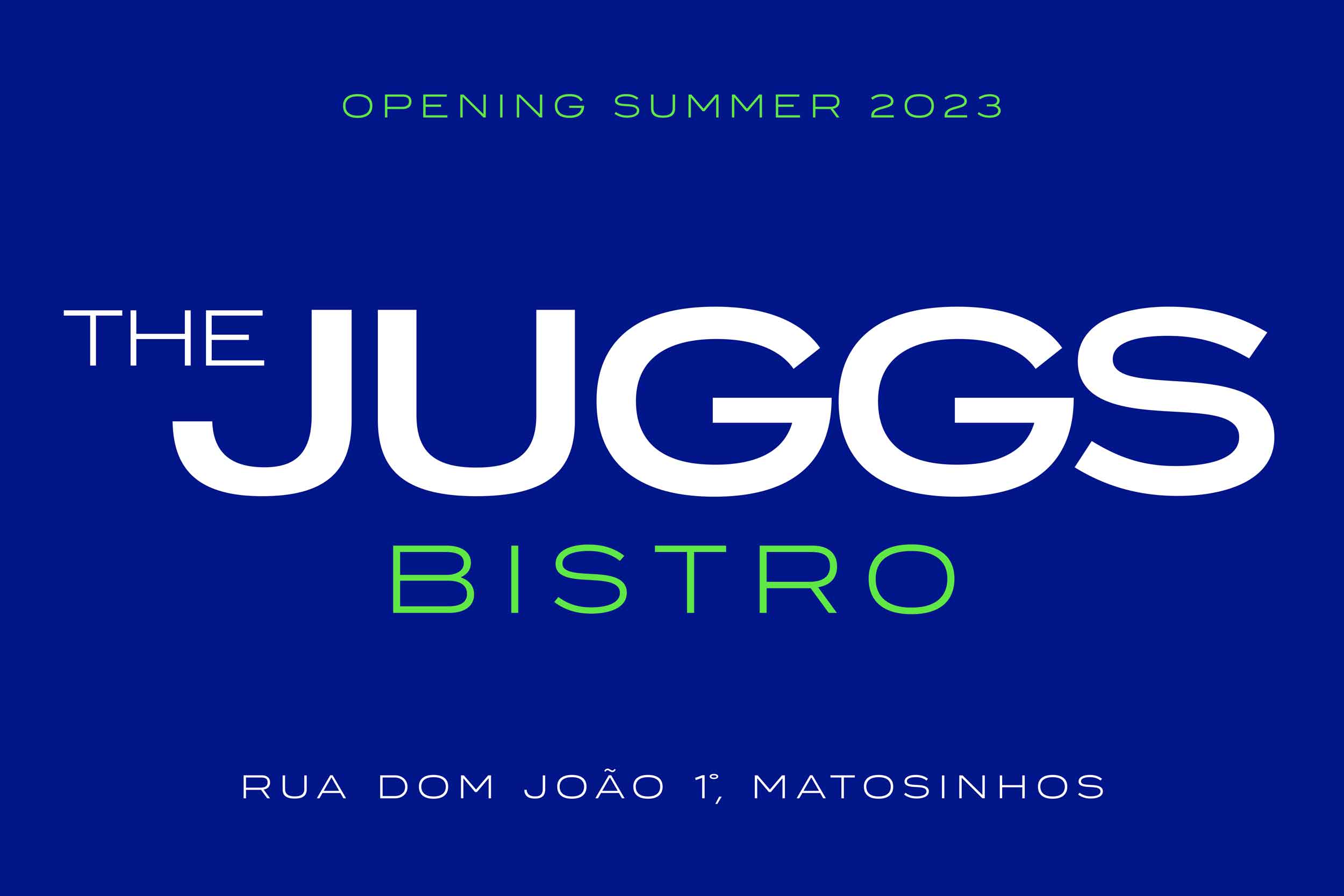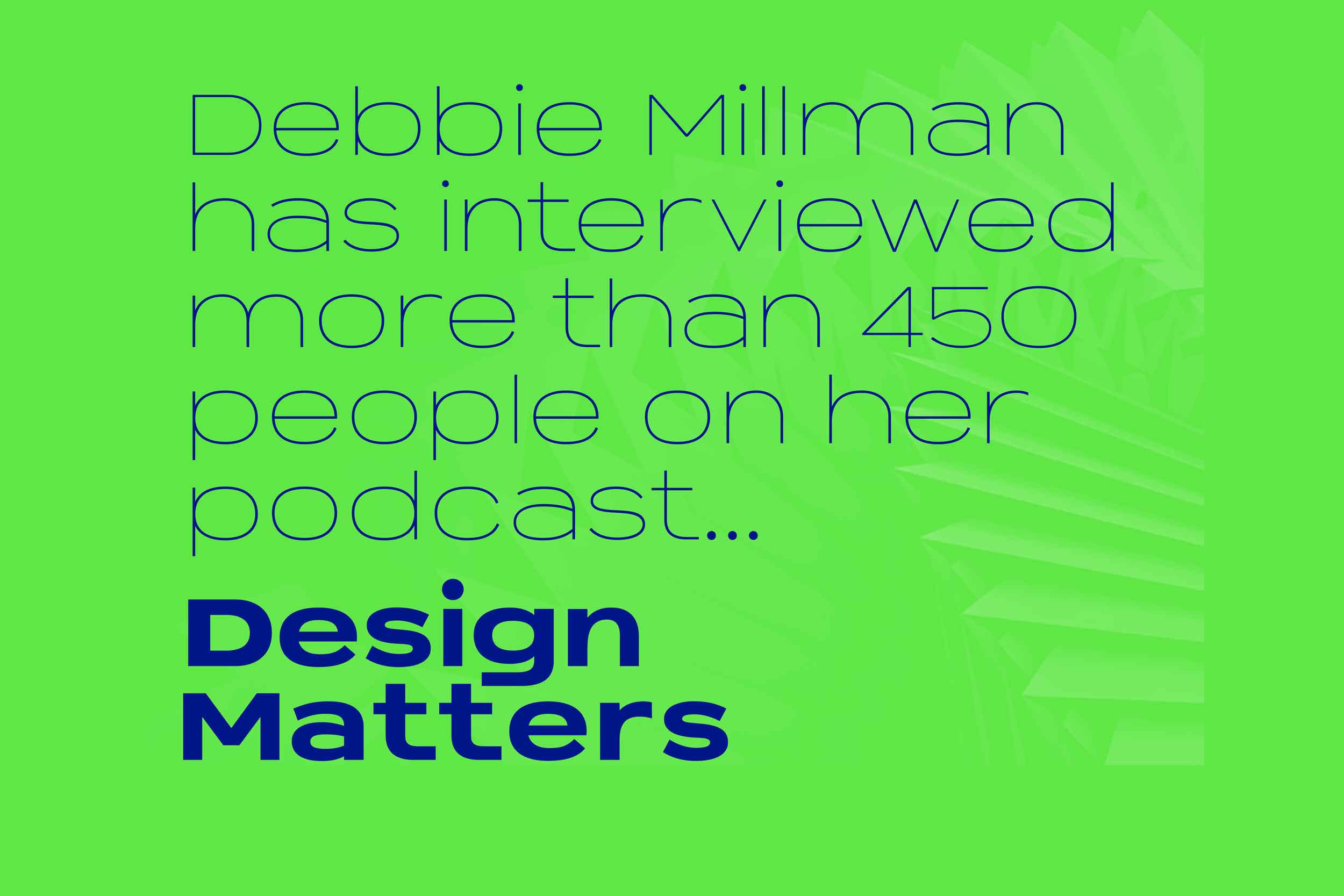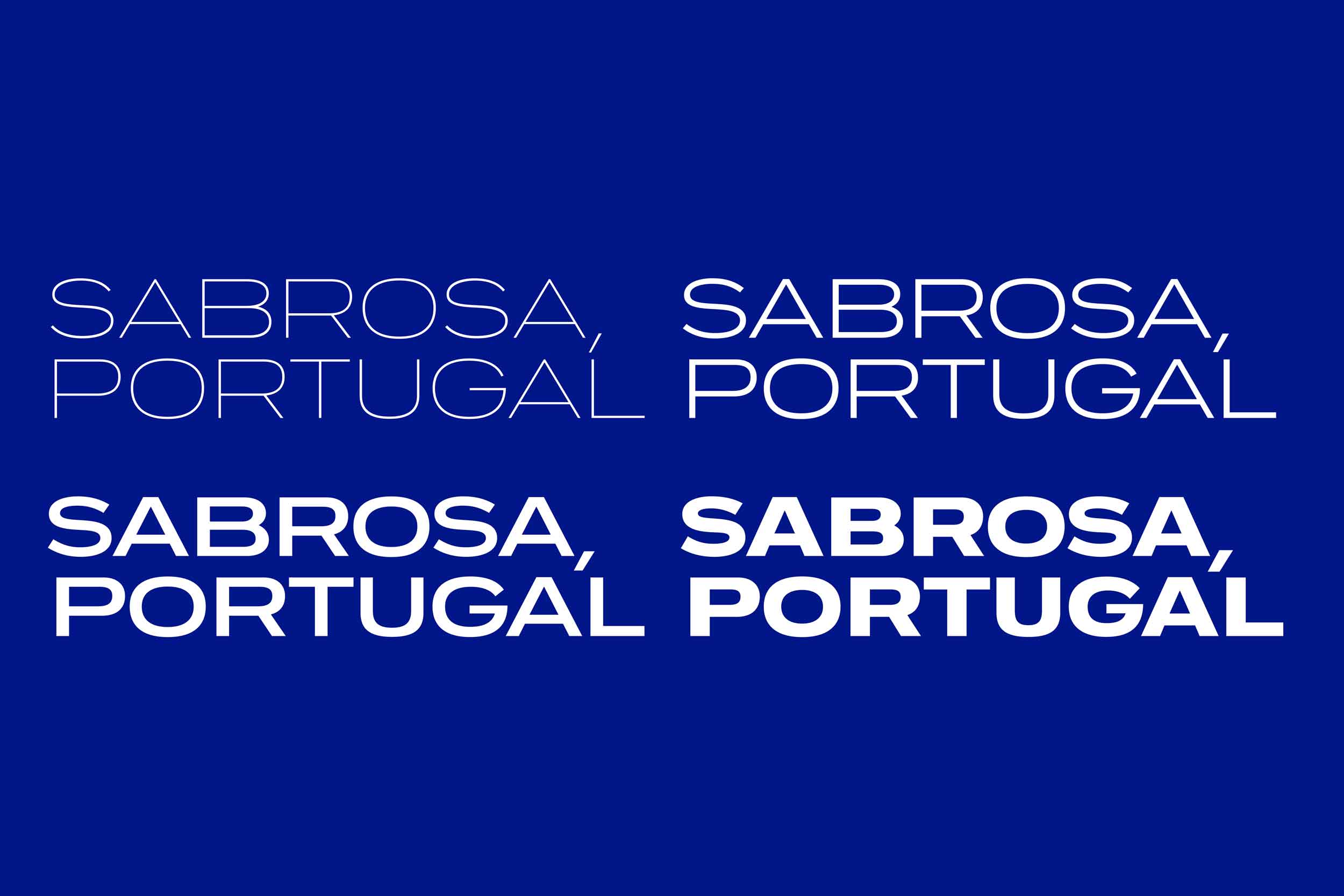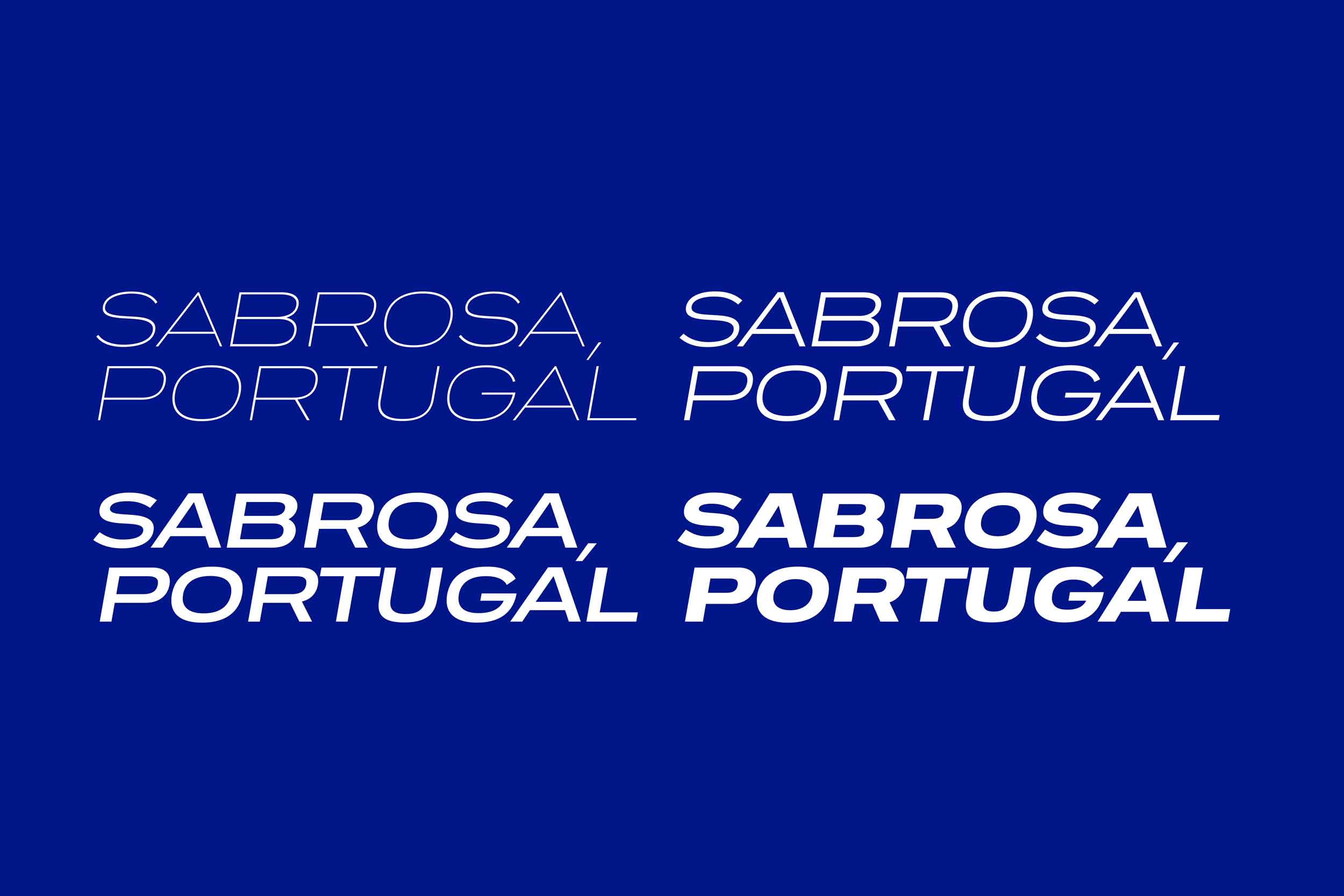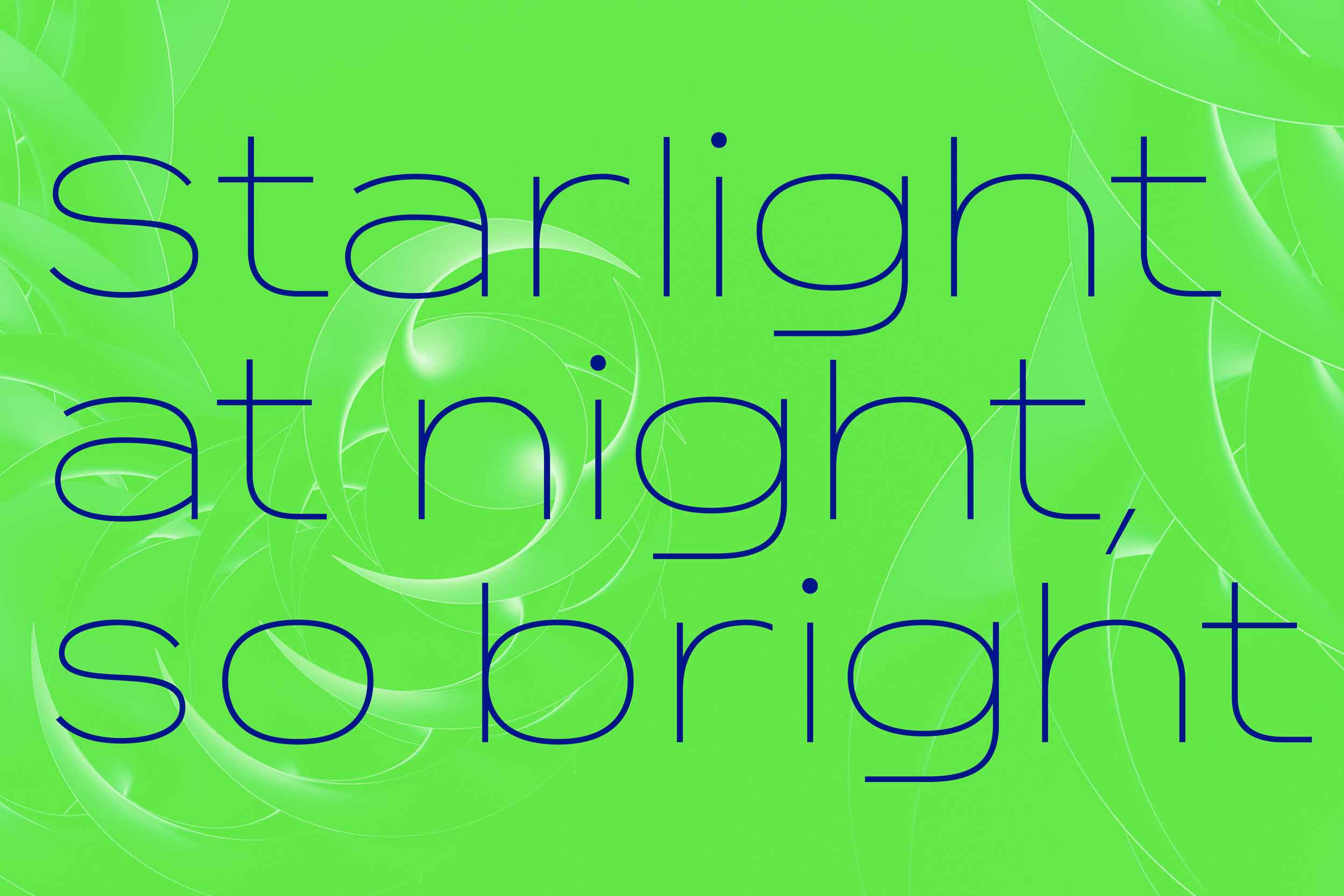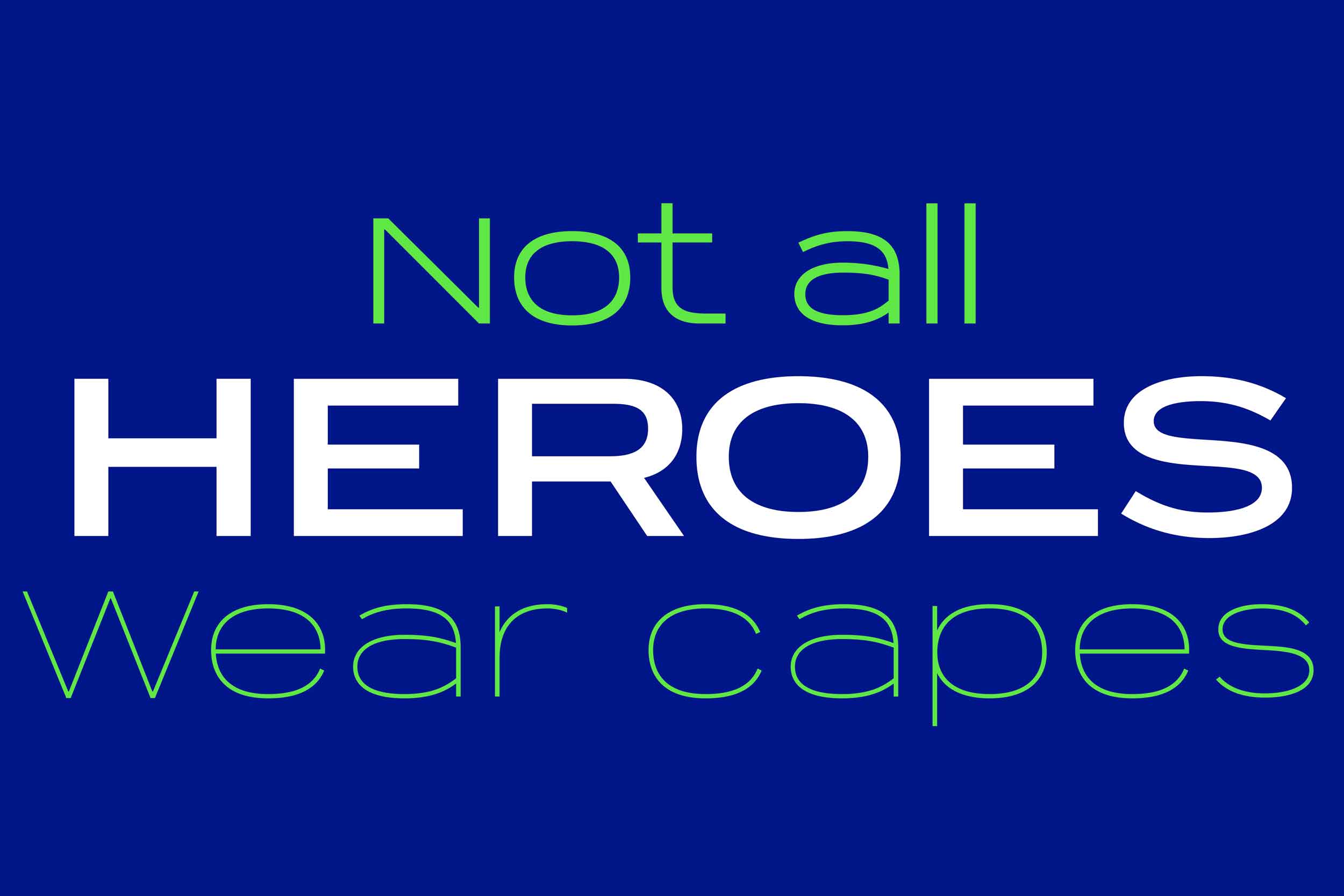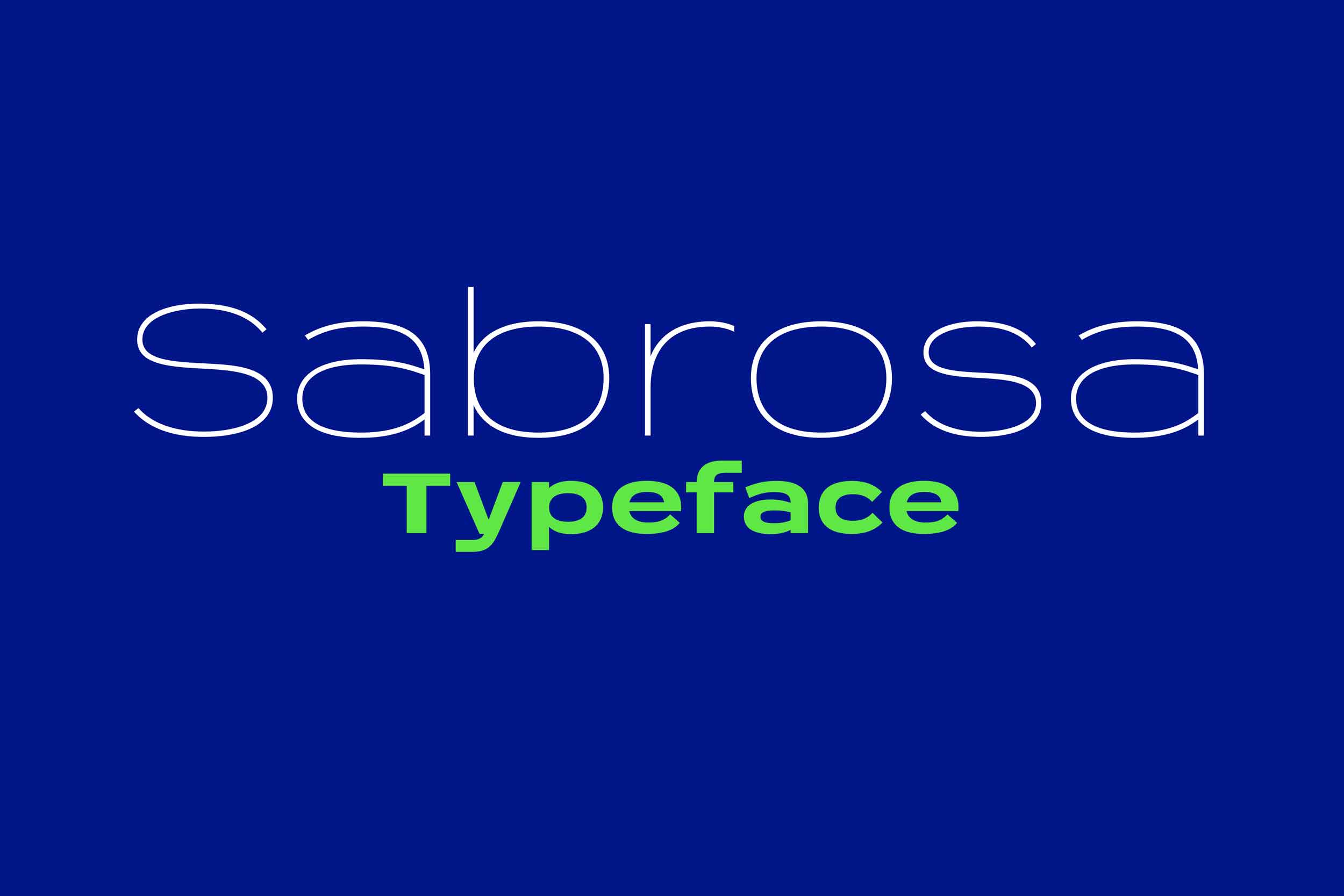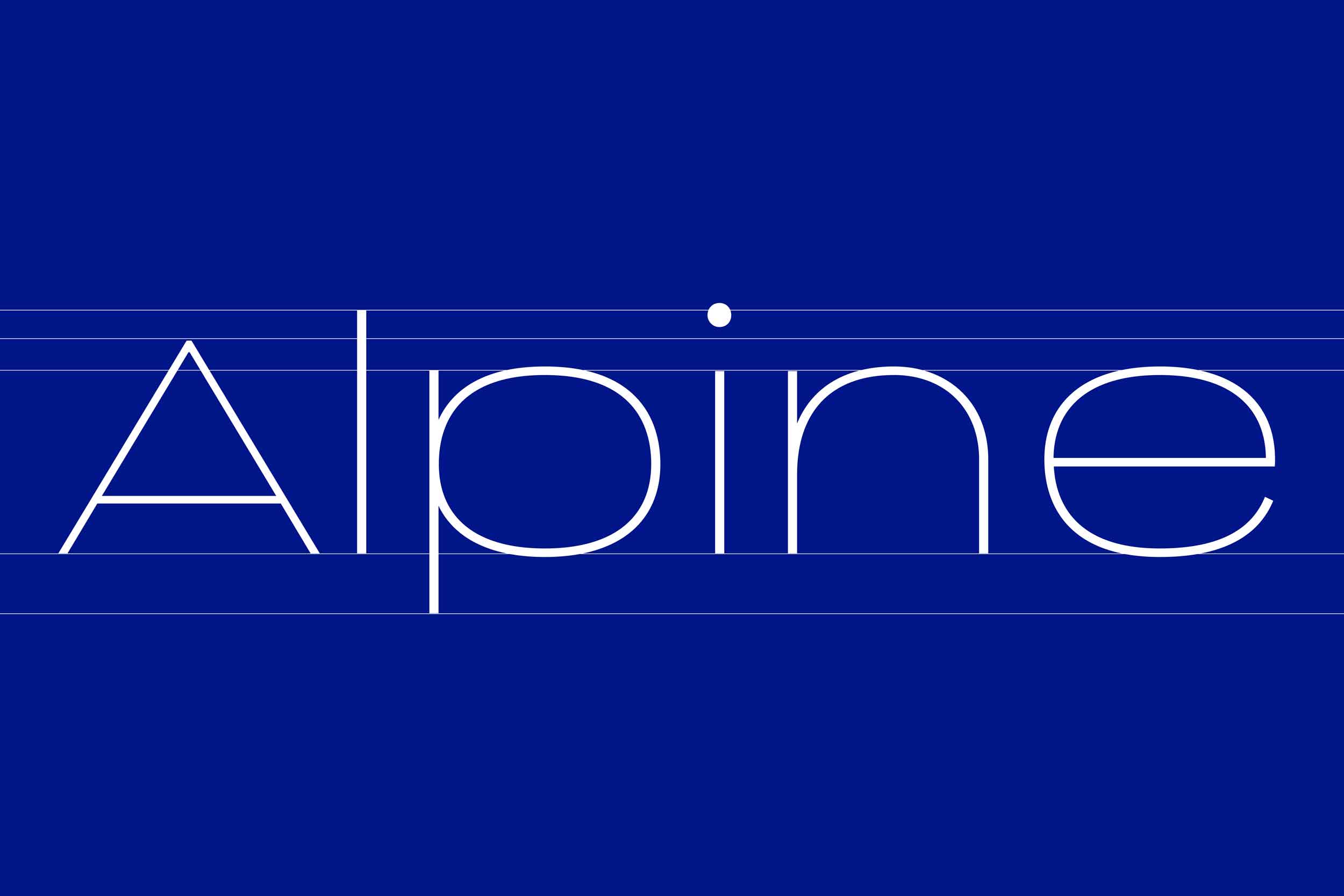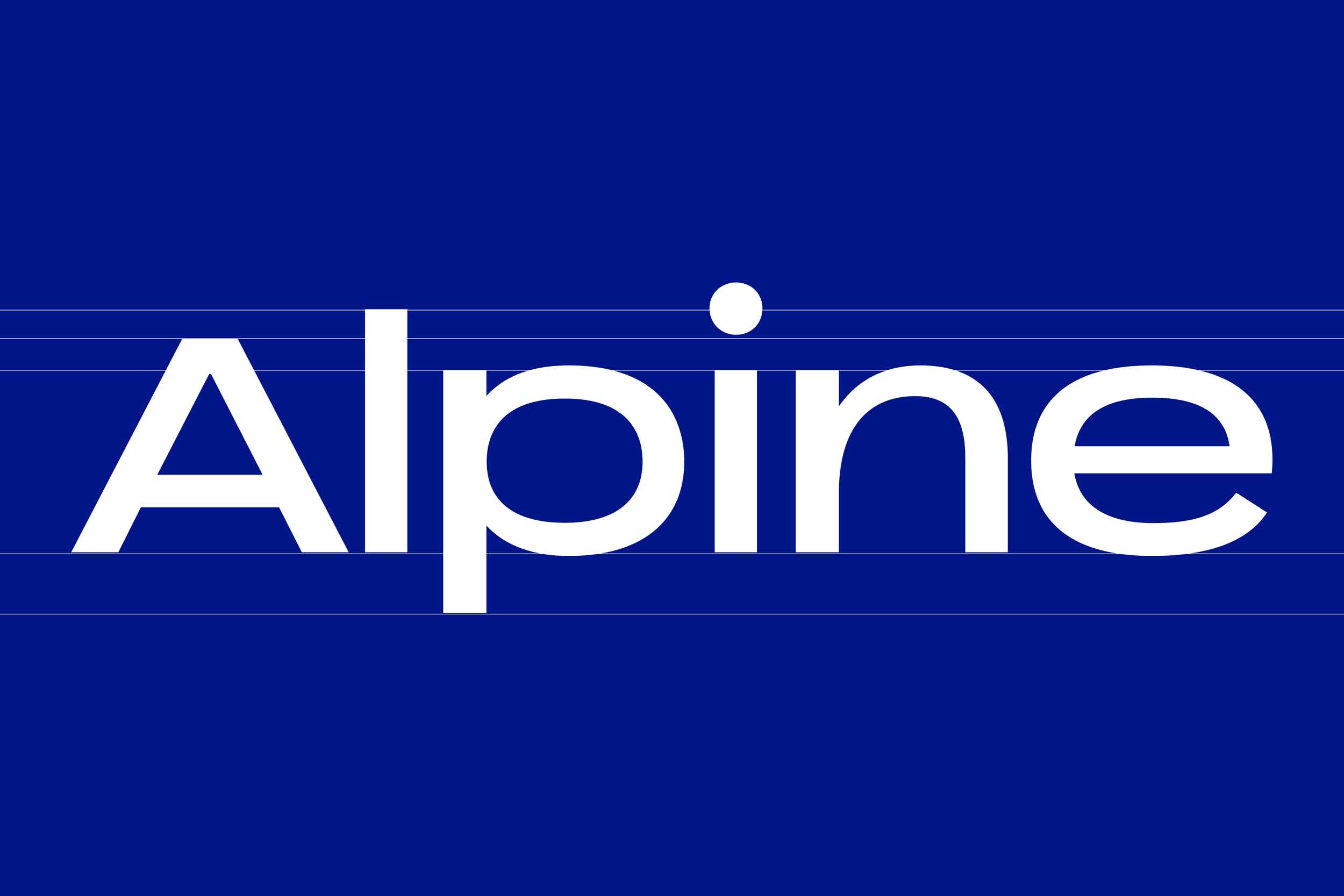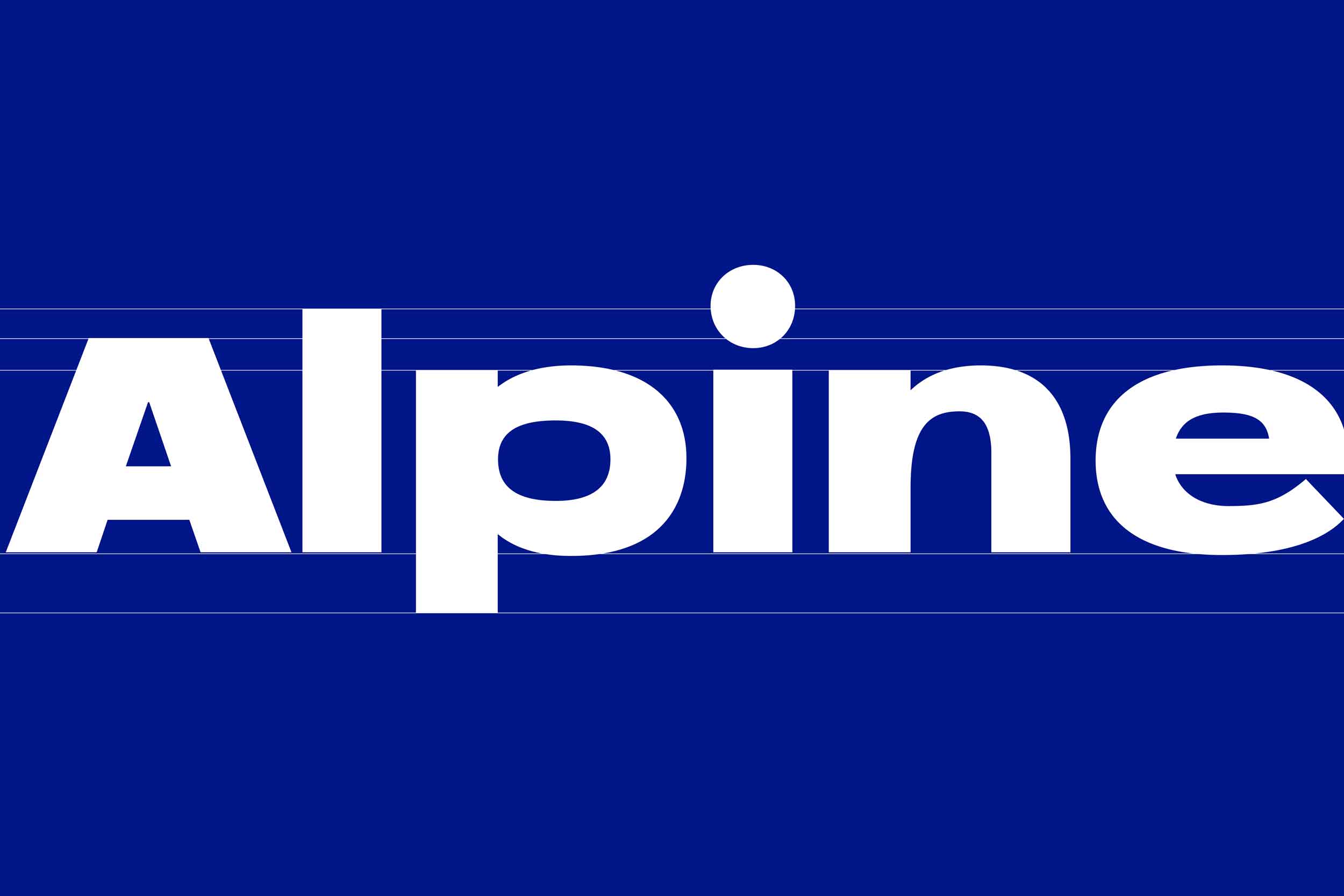
Sabrosa
This display type family was developed with large headlines in mind. While the fonts work will at large size, they are not overbearing and get the point across without being too “shouty”.